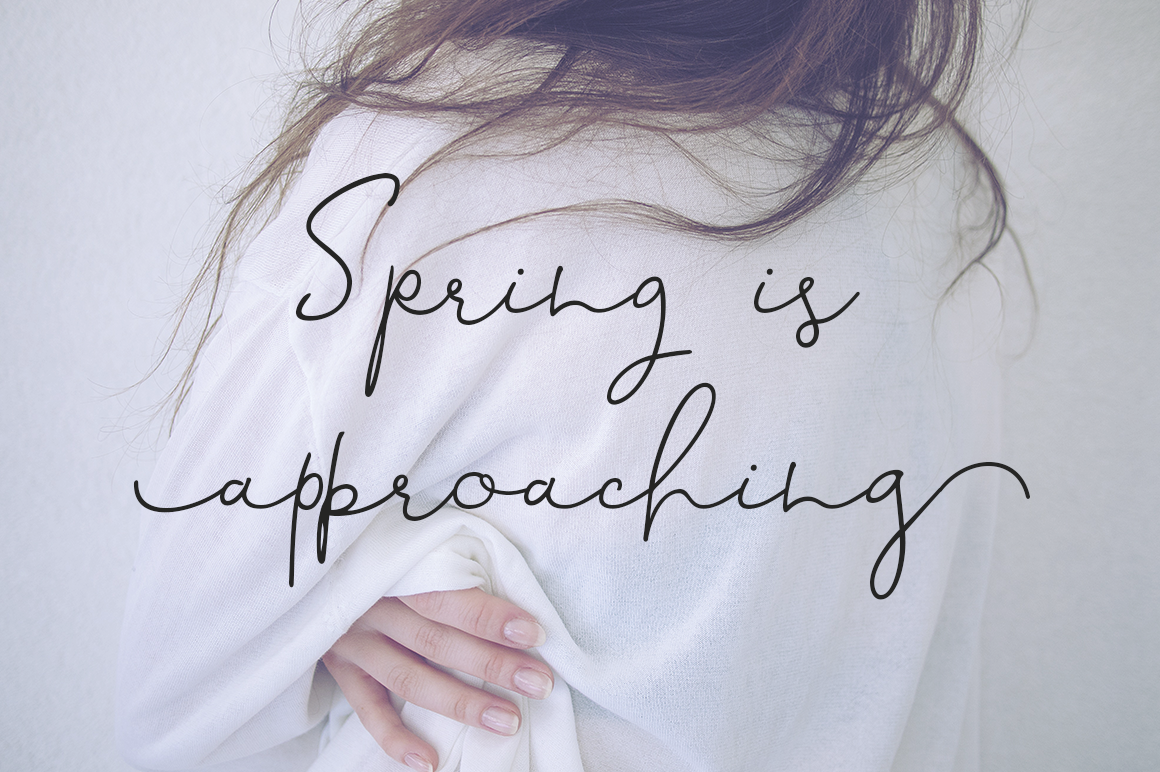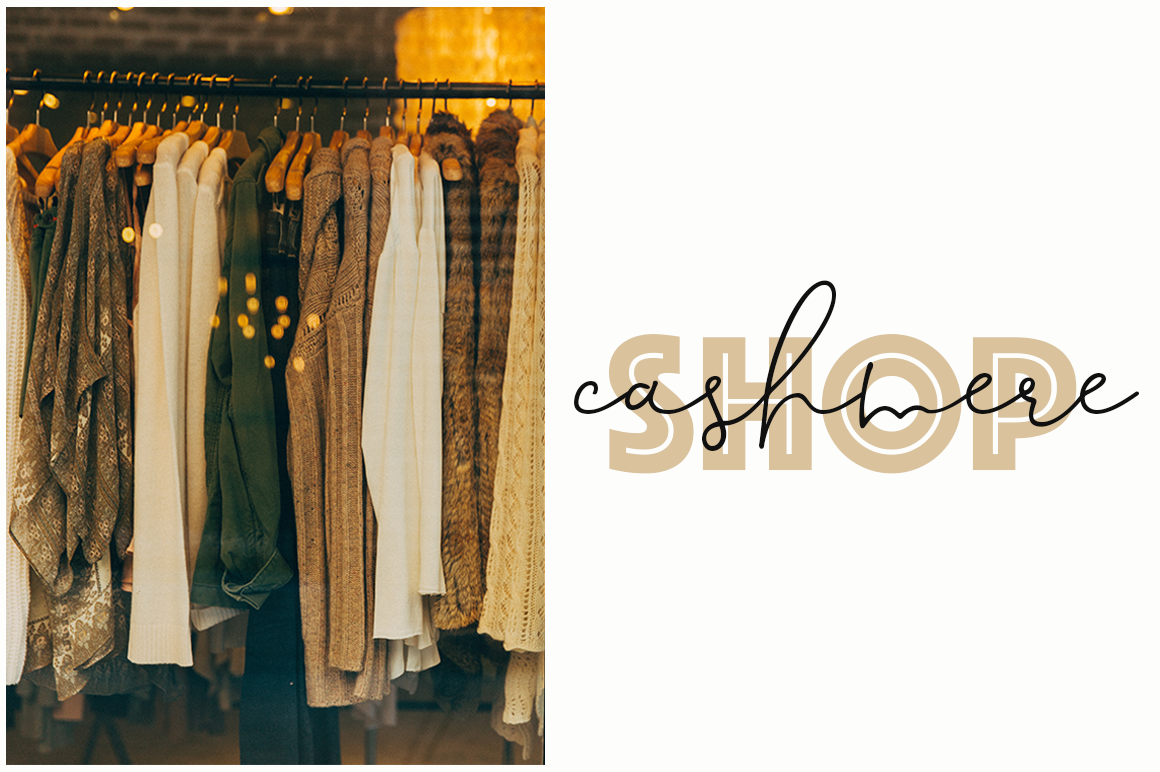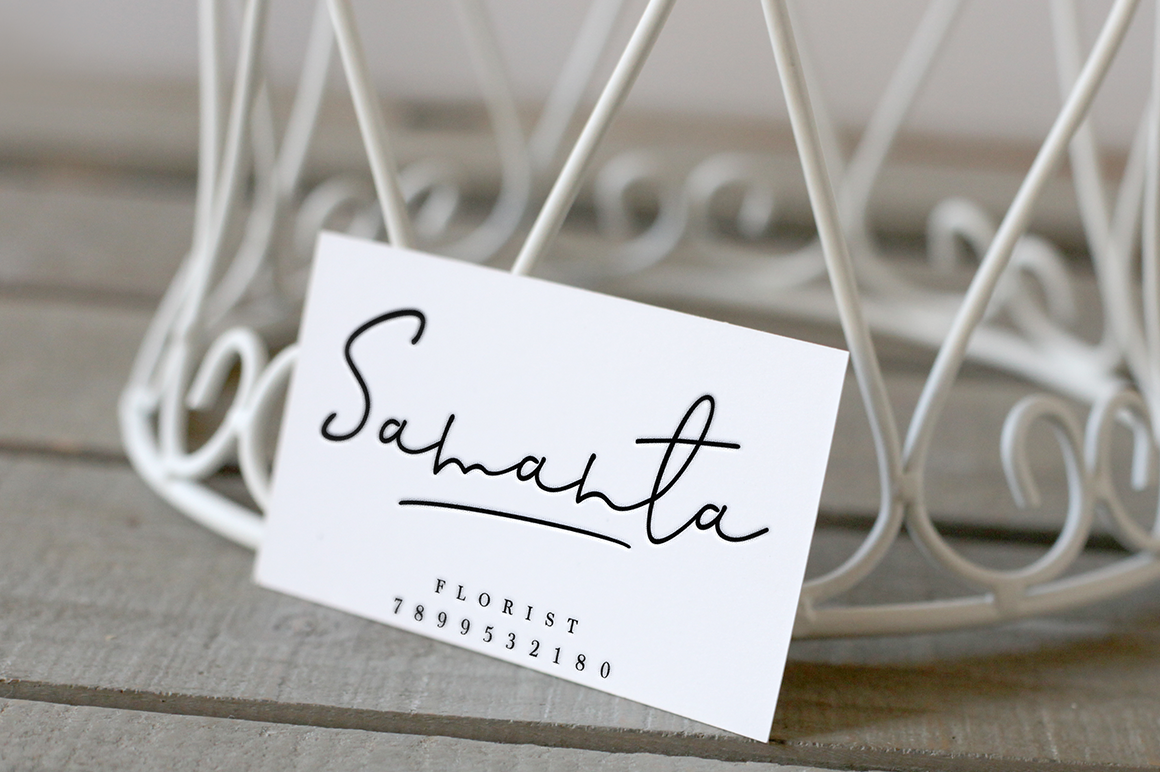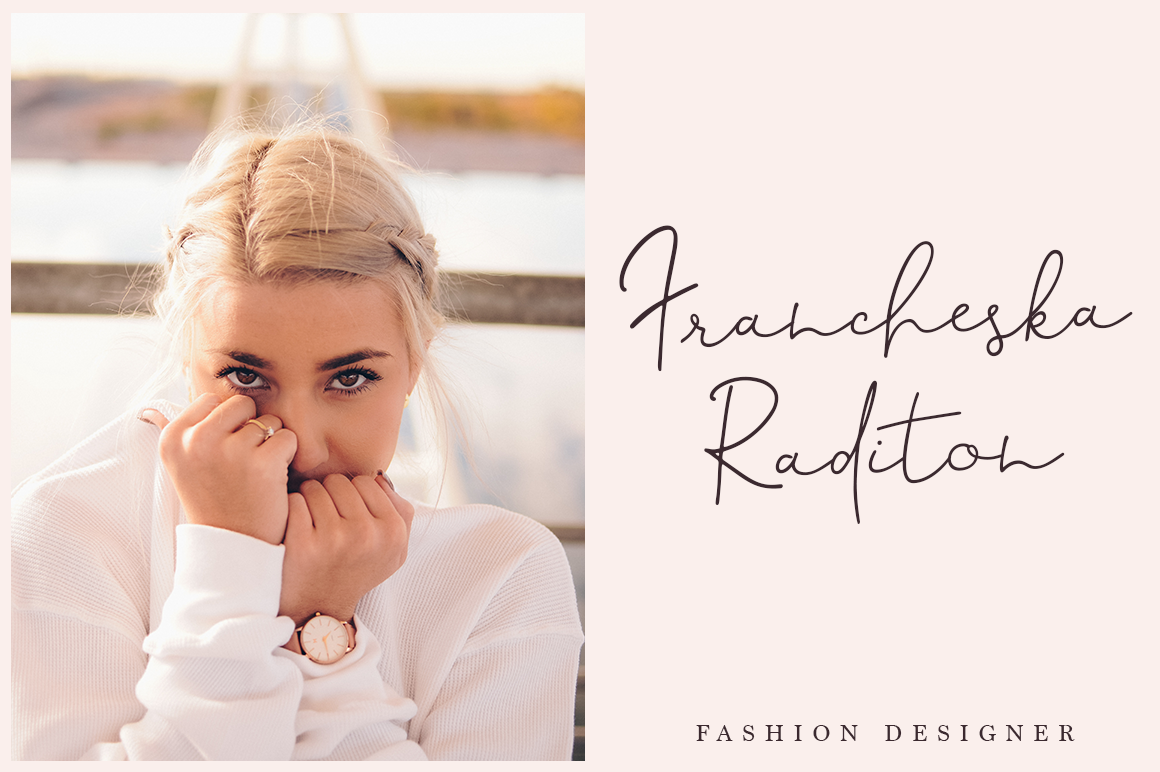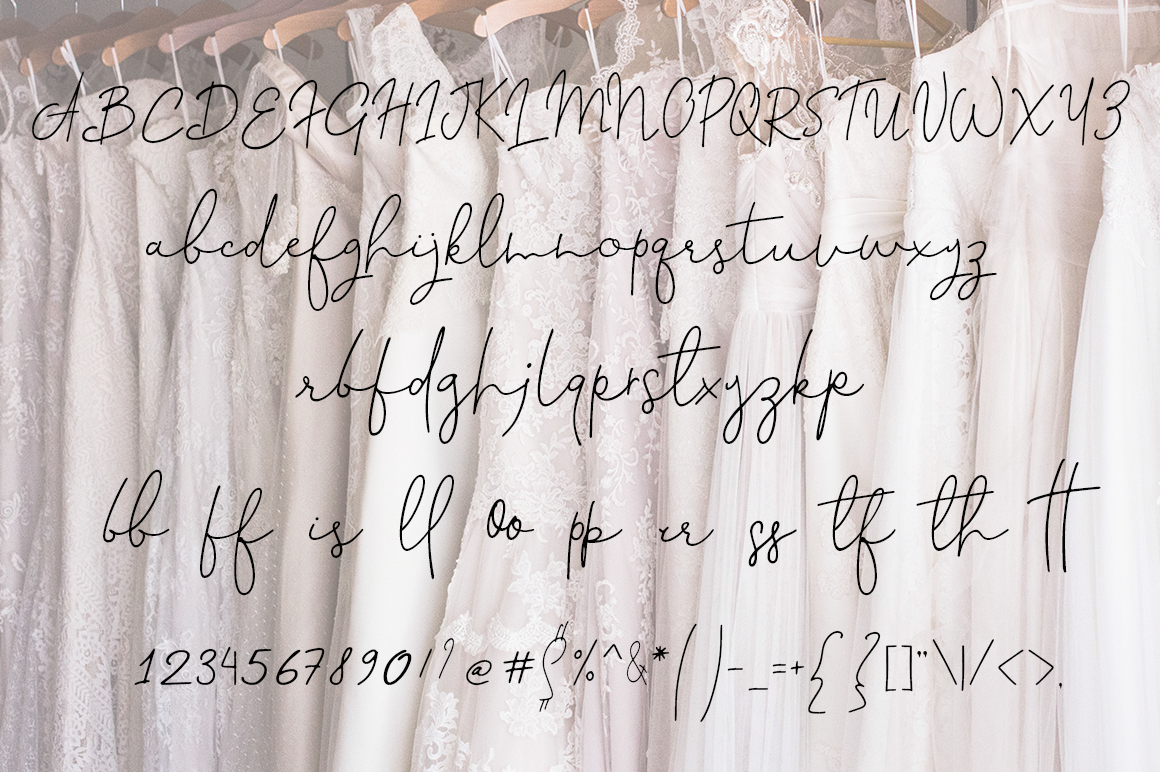
Handricks Font
About Handricks Font
Handricks is a gorgeous and casual script font. This is a great signature font, and can add a clean and fresh look to your designs.